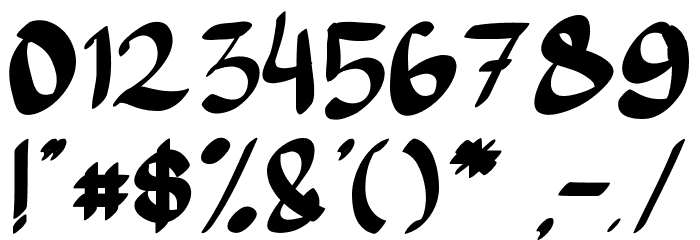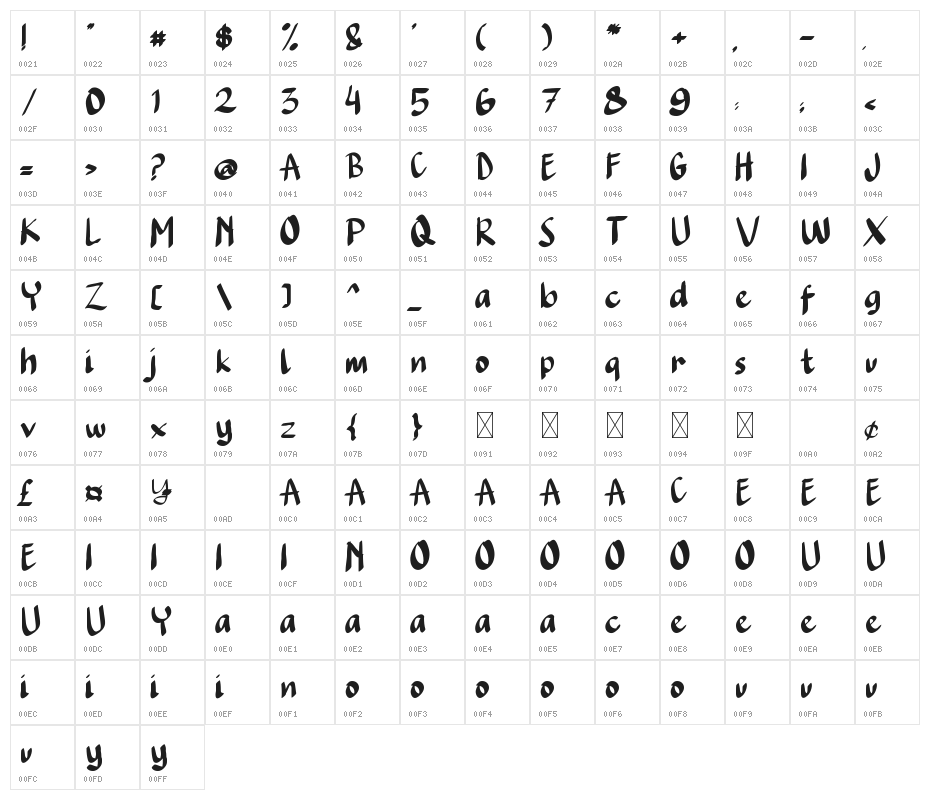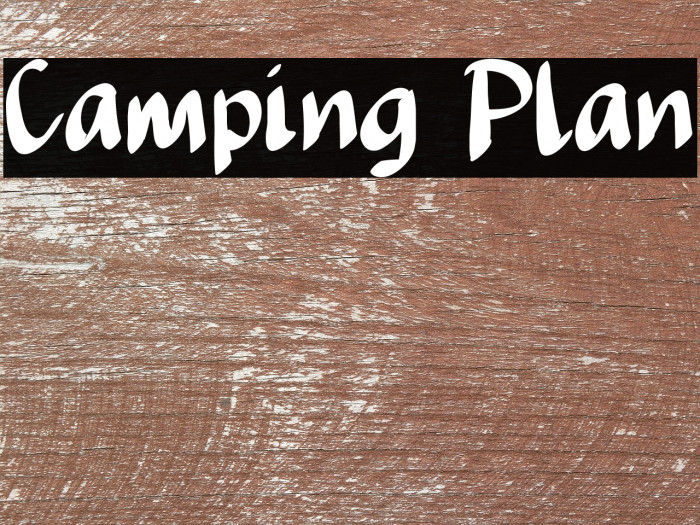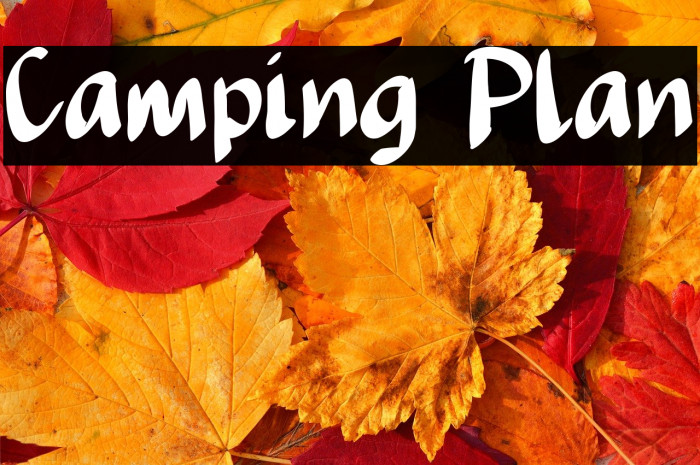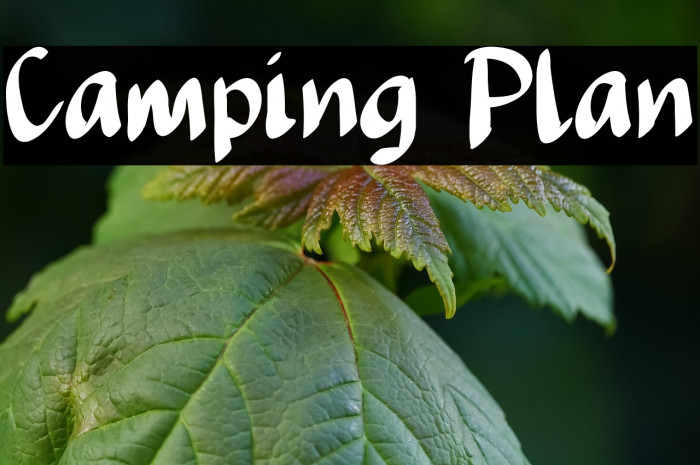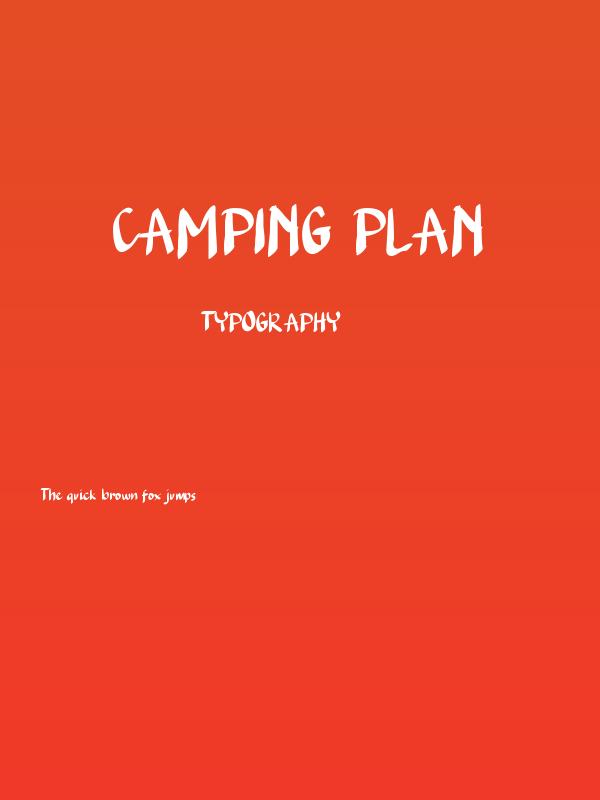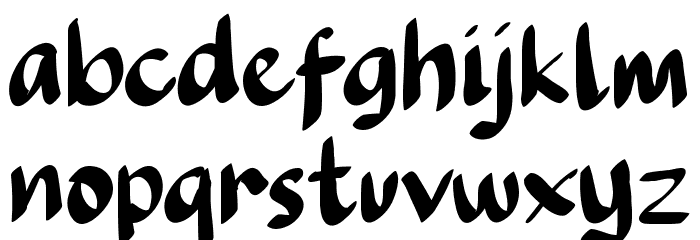
Camping Plan Font
Camping Plan Description
This font features a bold, energetic style with a hand-painted appearance. The characters are slightly irregular, giving it a dynamic and lively feel. The strokes are thick and expressive, with a brush-like texture that adds a sense of movement and spontaneity. The uppercase and lowercase letters maintain a consistent style, with rounded edges and a playful, informal look. The numbers and special characters follow the same aesthetic, ensuring a cohesive appearance across all glyphs. This font is ideal for projects that require a personal, artistic touch.